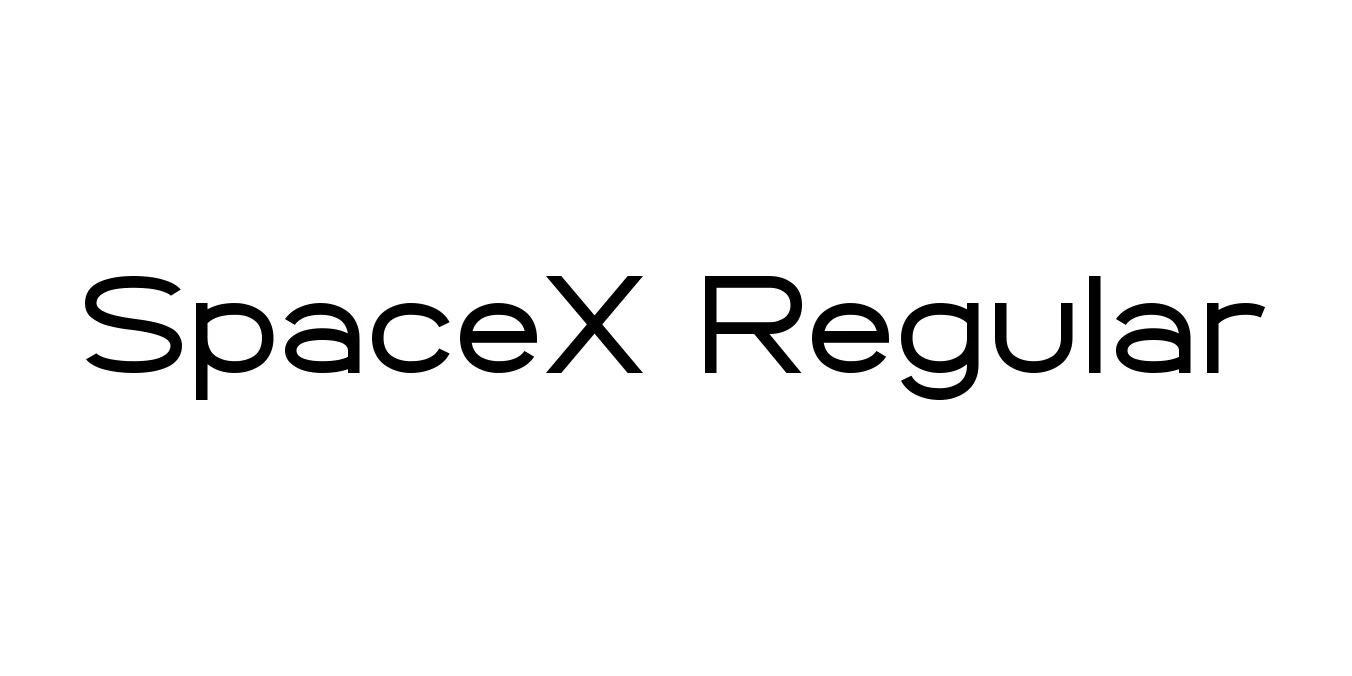
SpaceX Regular
Designed by SpaceX Internal Design Team (Custom Inspired)
| Category | Sans Serif / Futuristic |
| Similar Fonts | Bank Gothic, Futura, Neuropol, Agency FB |
The SpaceX Regular font is a futuristic and high-tech typeface inspired by the custom lettering found in the logo of the aerospace manufacturer founded by Elon Musk. It is characterized by its wide, geometric letterforms and a distinctive minimalist aesthetic that reflects modern engineering and space exploration. The most notable feature is its clean lines and specific character modifications that evoke a sense of aerodynamic precision and speed.
While the original brand mark is a custom-designed piece of typography, several digital recreations and similar variants have been developed for public use. This font is a favorite among designers working on science fiction themes, technology startups, and innovative branding projects. Its bold and wide stance makes it an excellent choice for display purposes where a sense of innovation and forward-thinking is required.
SpaceX Regular Best Uses
Perfect for high-tech company logos and corporate identities.
Ideal for bold headers and hero sections on modern websites.
Works exceptionally well for cinematic and space-themed event posters.
Suitable for futuristic user interfaces and gaming menus.